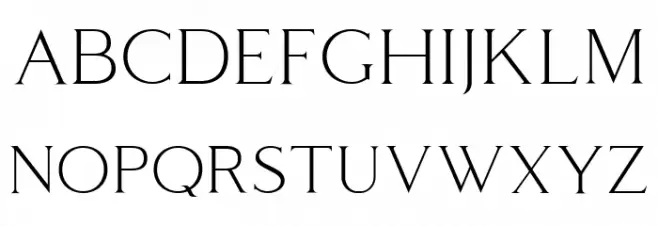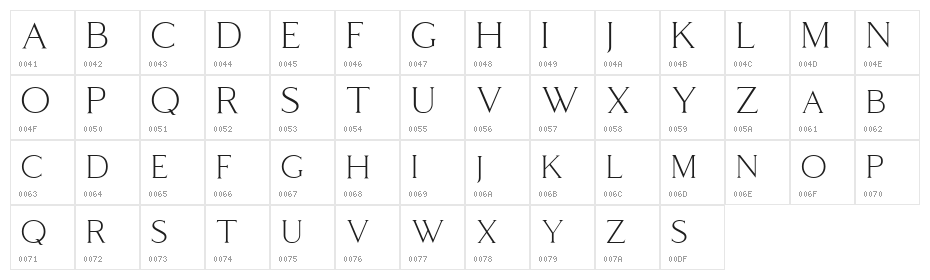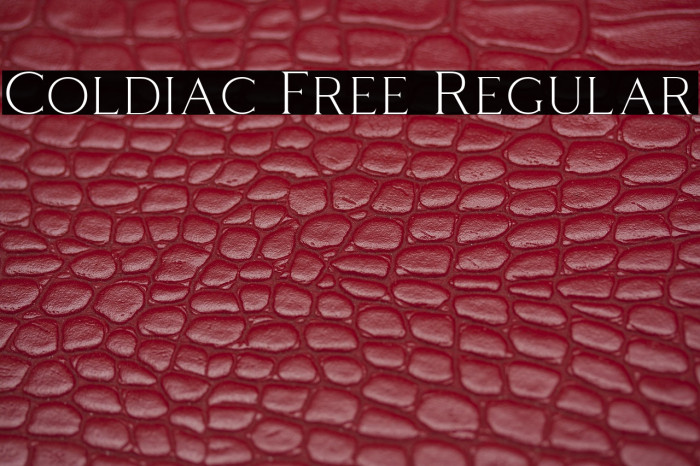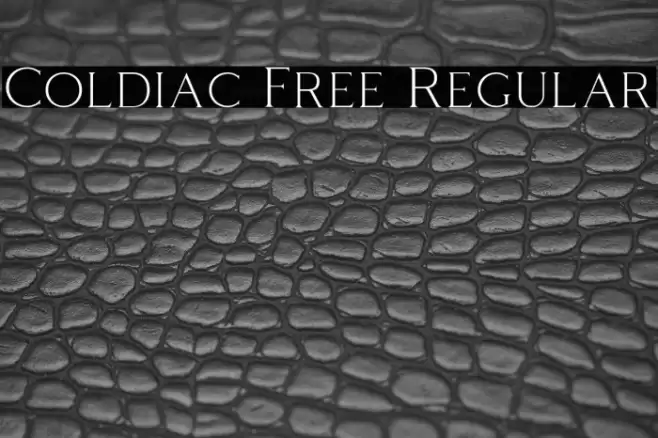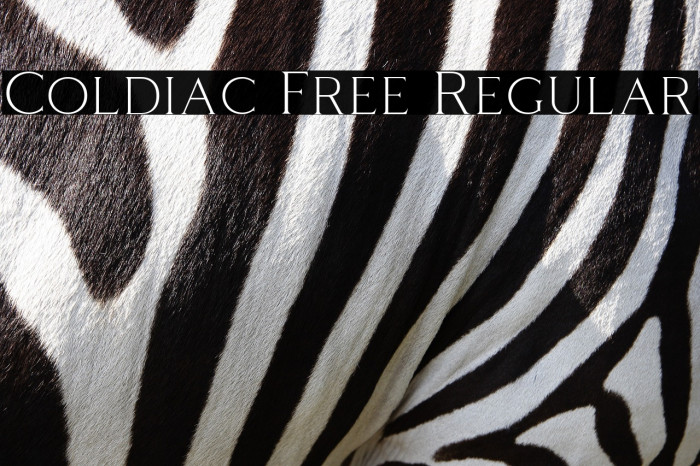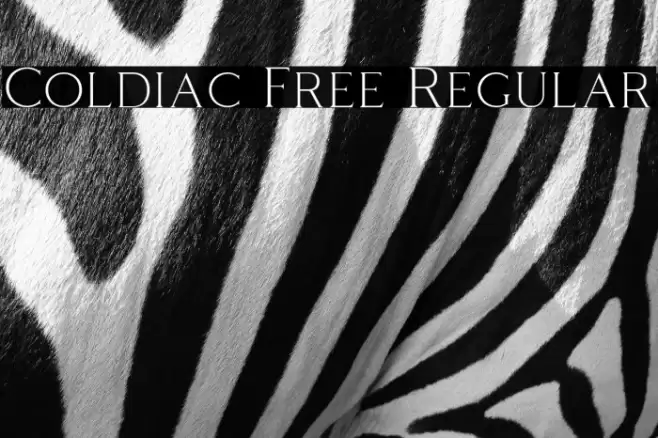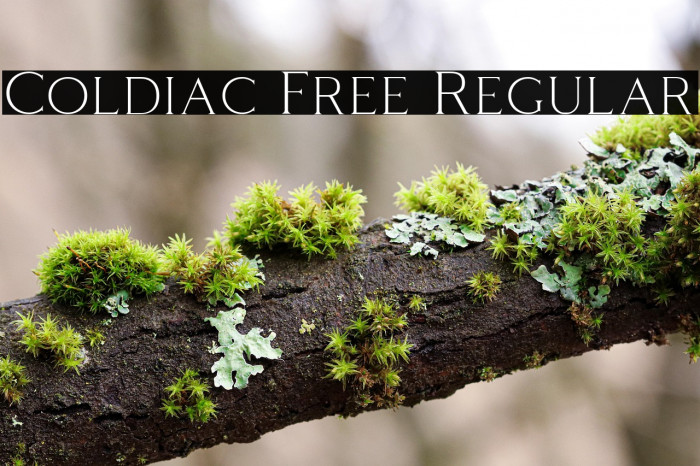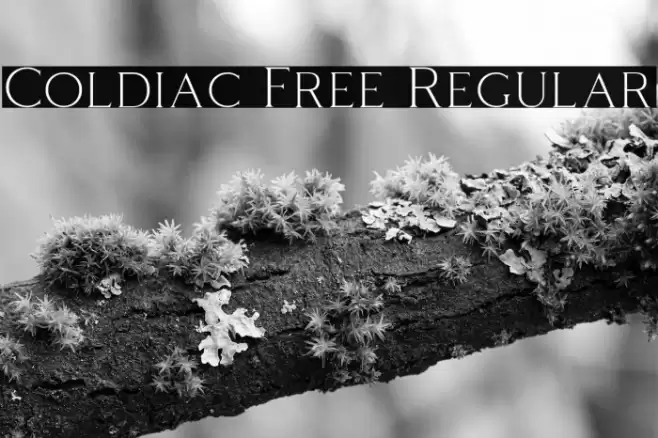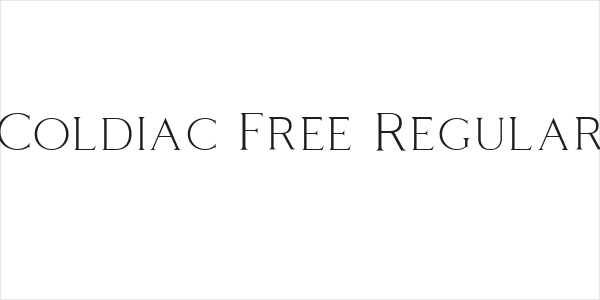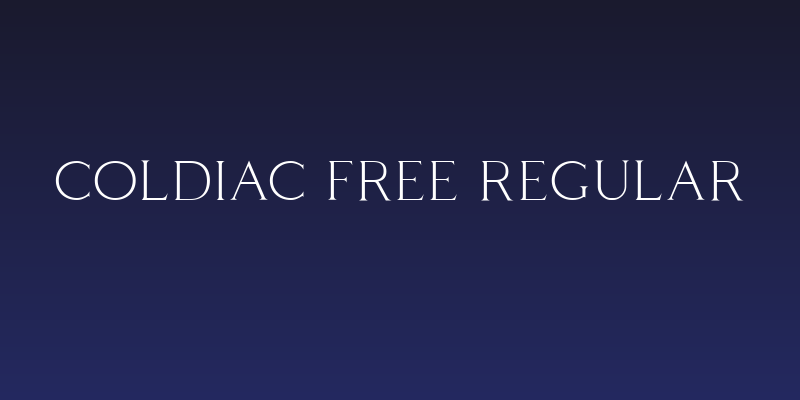
Coldiac Free Regular Font
Coldiac Free Regular Description
This font features a clean and elegant serif style, characterized by its thin, elongated strokes and subtle curves. The uppercase letters exhibit a classic and sophisticated appearance, with a balanced proportion that enhances readability. The lowercase letters maintain a consistent style, complementing the uppercase with their refined and graceful design. The numerals are clear and distinct, making them suitable for both formal and informal settings. Special characters are well-integrated, maintaining the font's overall aesthetic. This font's timeless appeal makes it versatile for various design applications.
| Proposed Projects | Ideal for editorial design, branding, invitations, and any project requiring a touch of elegance and sophistication. |